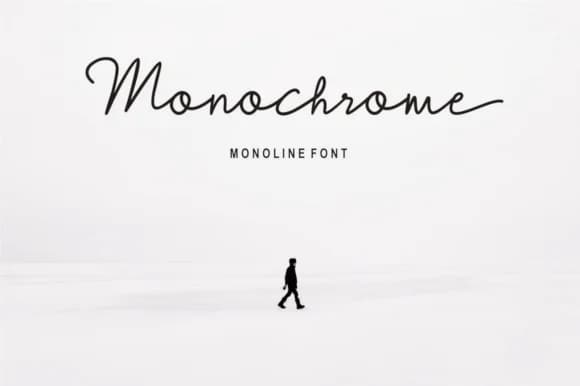
1 / 8About Monochrome Font
Monochrome by Fikryal Studio is a modern monoline script that brings elegant, hand-drawn character to contemporary design projects. The font features flowing swashes throughout its letterforms, creating a distinctly feminine aesthetic that reads as both refined and approachable. Each glyph is drawn with a consistent single-stroke weight, giving the typeface a uniform delicacy without sacrificing personality.
This versatile script works exceptionally well for wedding invitation suites where couples want sophisticated yet personal touches, or for greeting card designs that need warmth and elegance combined. Boutique beauty and lifestyle brands use monoline scripts like this for product packaging labels, while creative entrepreneurs leverage it for social media post headers and title graphics that stand out in feeds. The gentle, gestural quality also makes it ideal for DIY craft projects where handmade authenticity matters.
Monochrome's balanced proportions ensure it remains readable even at smaller sizes, though it truly shines when given generous spacing in headline applications. The consistent stroke weight keeps the design from feeling too ornate while the integrated swashes prevent it from appearing too minimal. Whether you're designing personal stationery, wedding materials, or brand assets for a contemporary lifestyle business, this monoline script delivers sophisticated femininity without pretension.
Monochrome Font is a script font that shines as a display or heading face. Pair it with a clean sans-serif or serif font for body text β the contrast creates a clear hierarchy while the two styles stay balanced and easy to read.